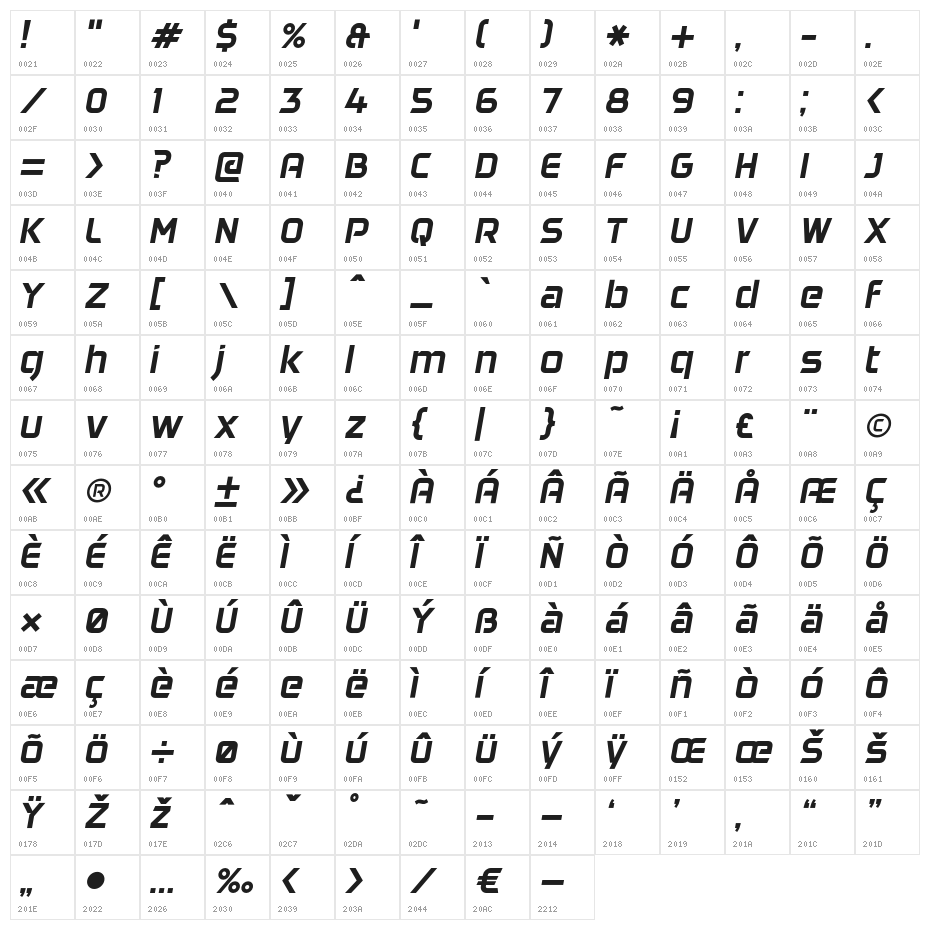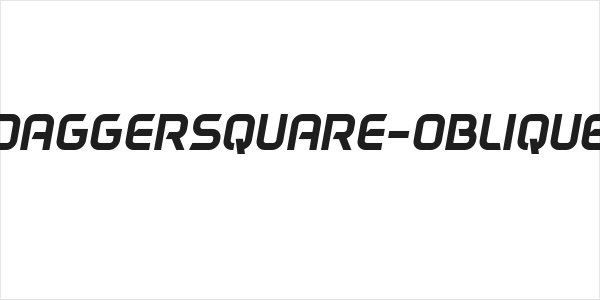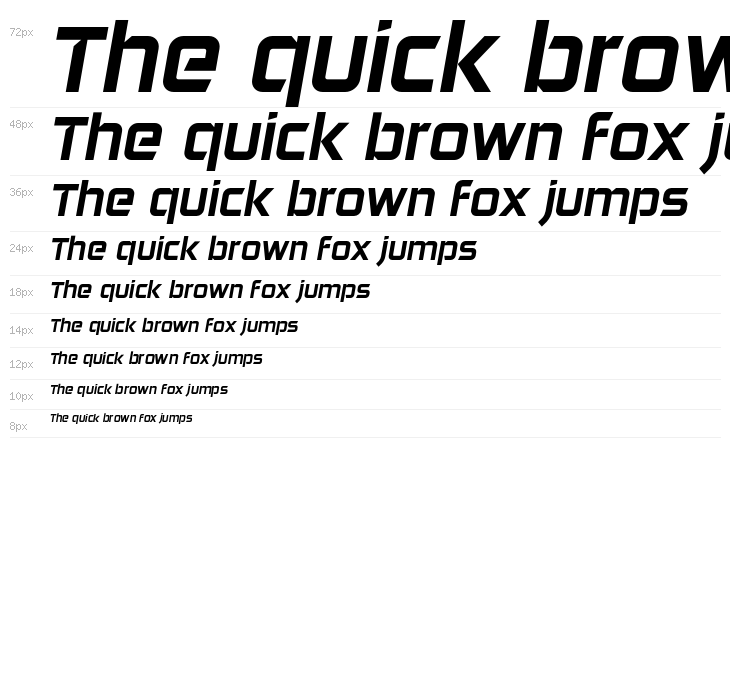
DAGGERSQUARE-OBLIQUE Font
DAGGERSQUARE-OBLIQUE Description
This font features a modern, angular design with a distinct oblique style, giving it a dynamic and forward-leaning appearance. The characters are bold and geometric, with sharp edges and a consistent stroke width that maintains uniformity across all glyphs. The uppercase and lowercase letters are designed with a slight slant, enhancing the sense of motion and energy. The numerals and special characters follow the same stylistic cues, ensuring a cohesive look. This font is well-suited for projects that require a contemporary and assertive typeface, such as branding, sports-related designs, or technology-focused applications.
| Proposed Projects | Ideal for branding, sports designs, technology applications, and dynamic headlines. |